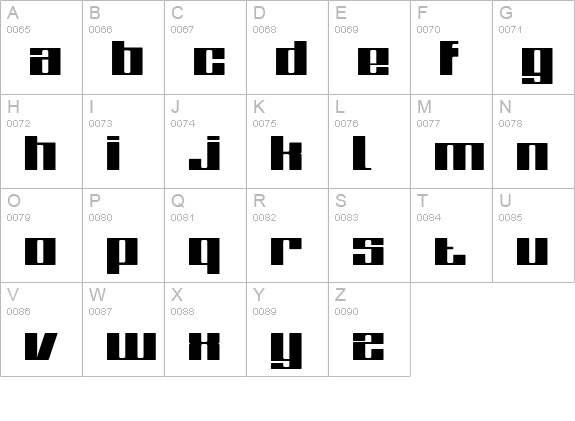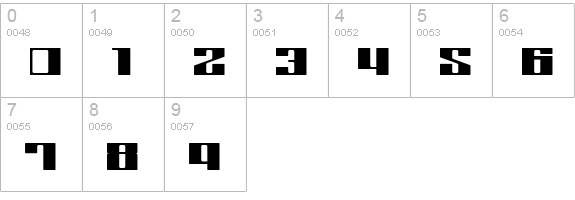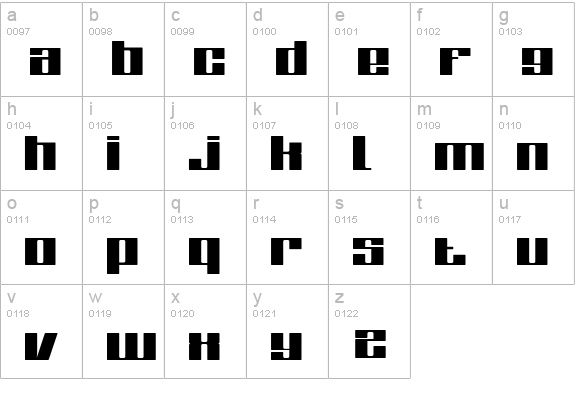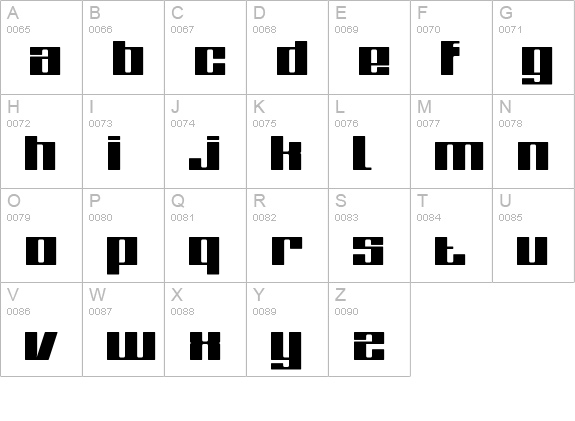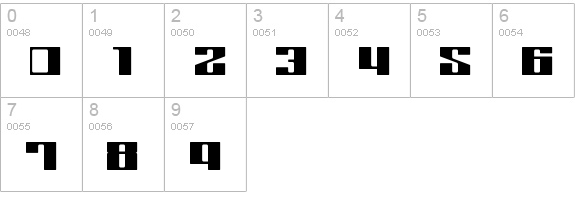
Zone Regular is the standard, neutral variant in the Zone typeface family \xE2\x80\x94 well suited to general body text, paragraphs, and standard typographic work.